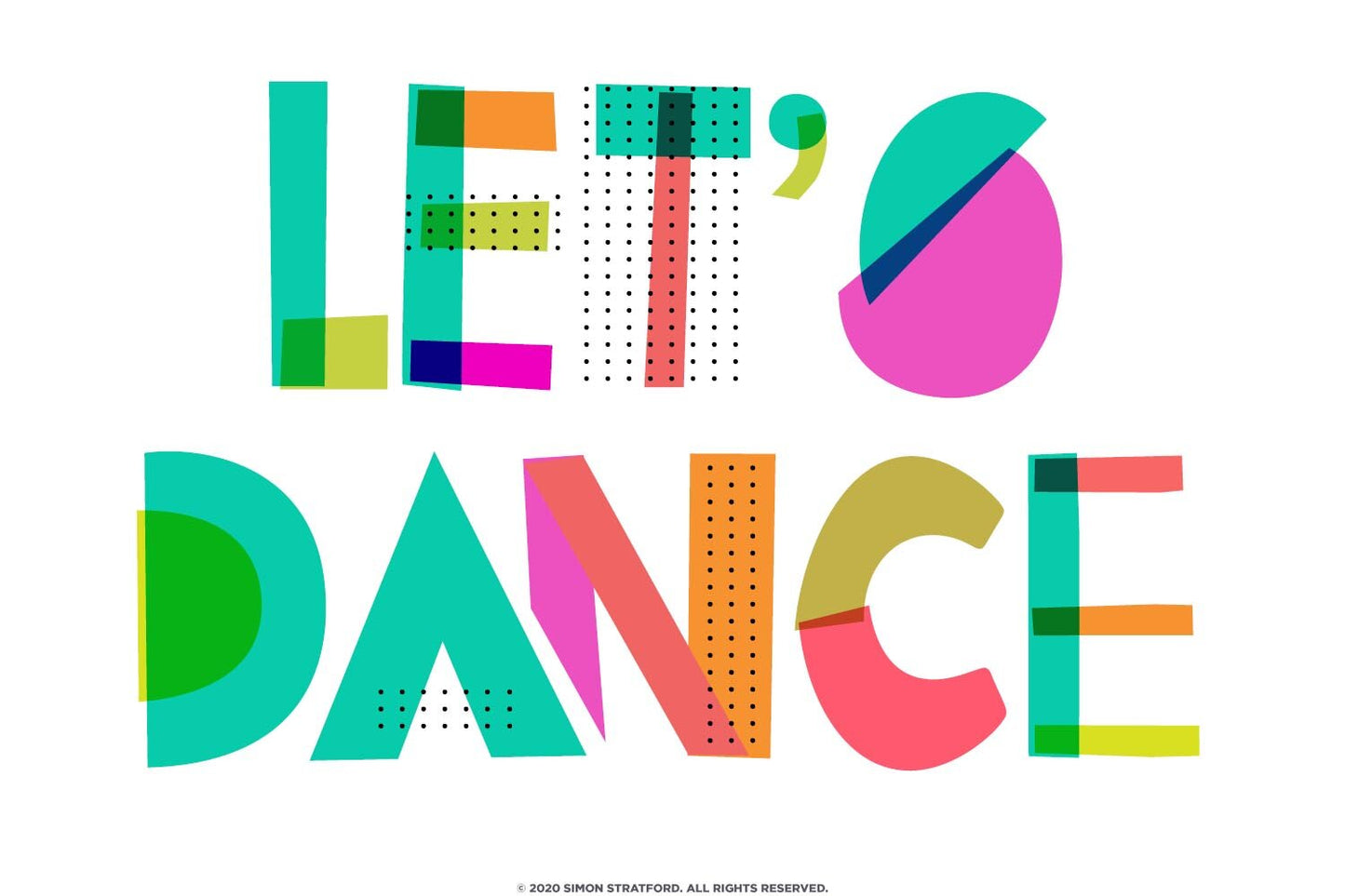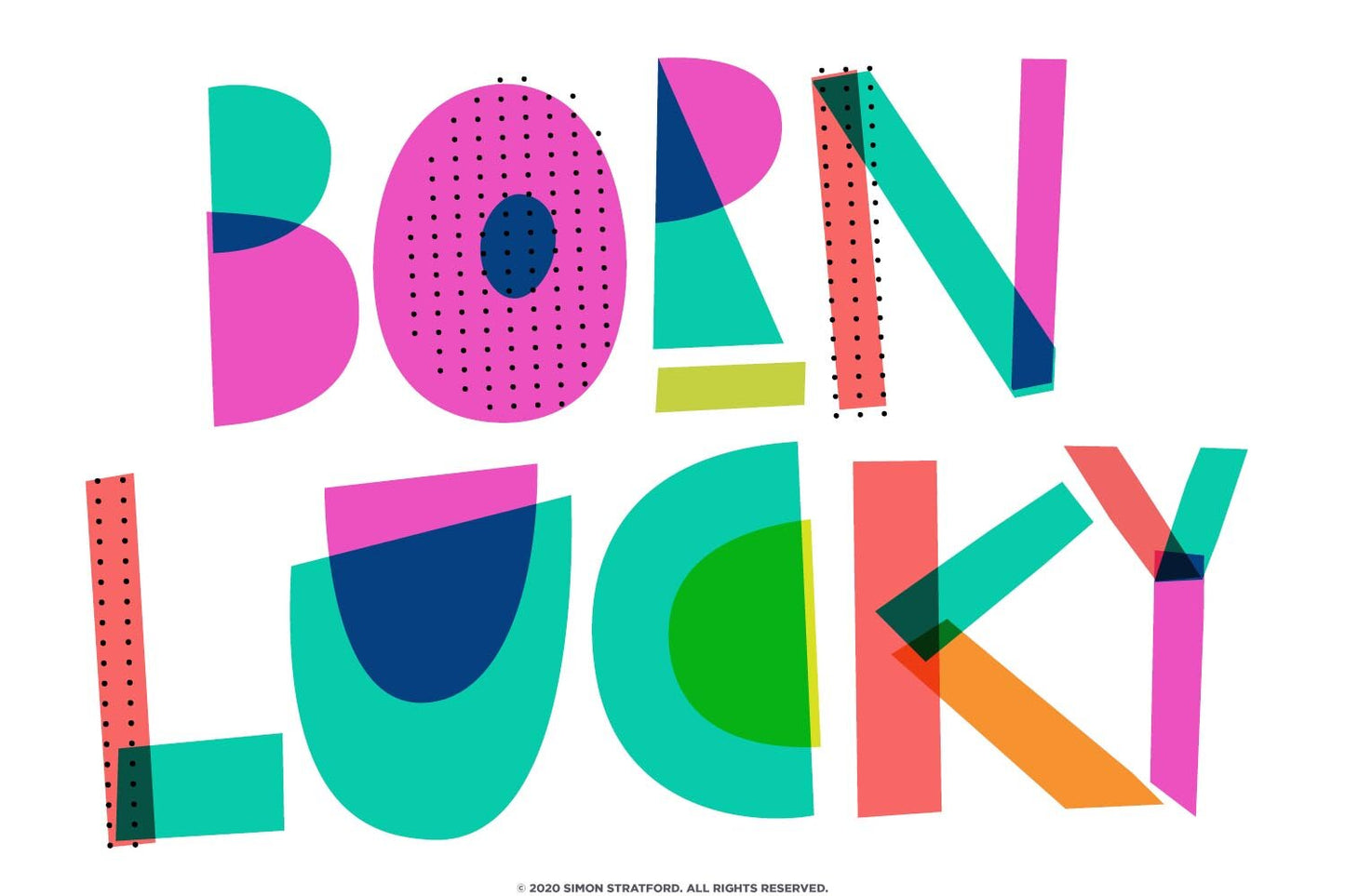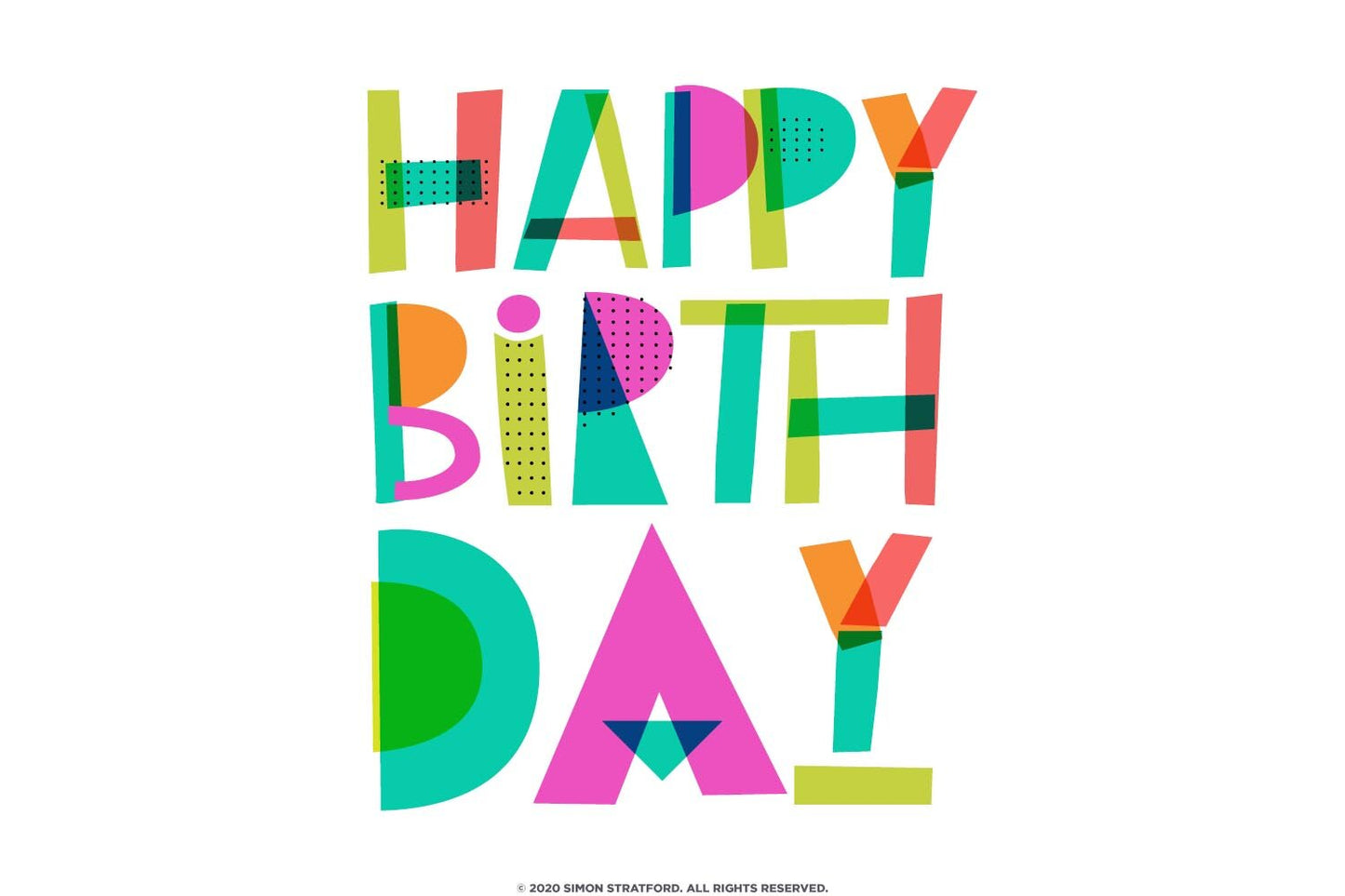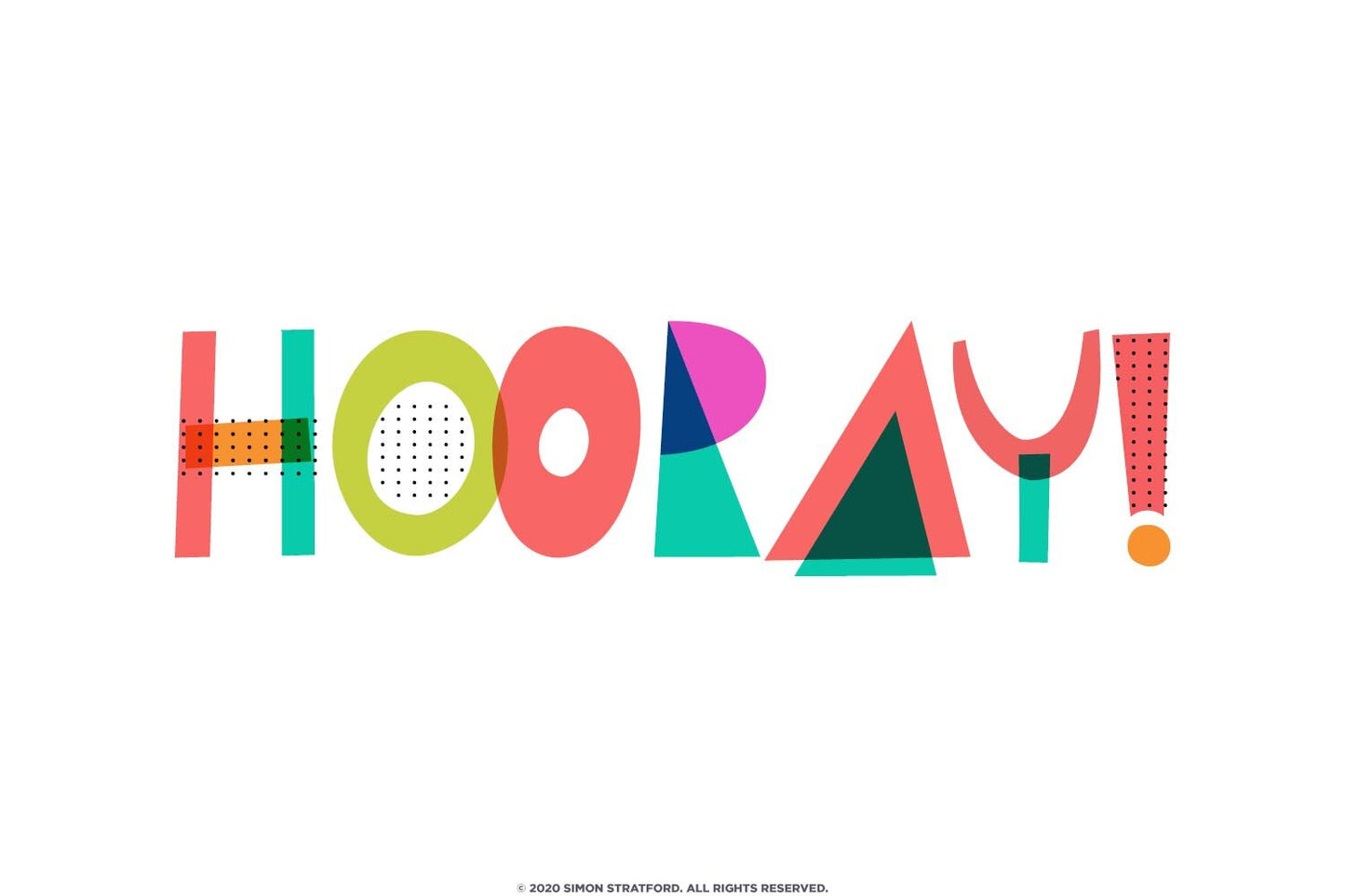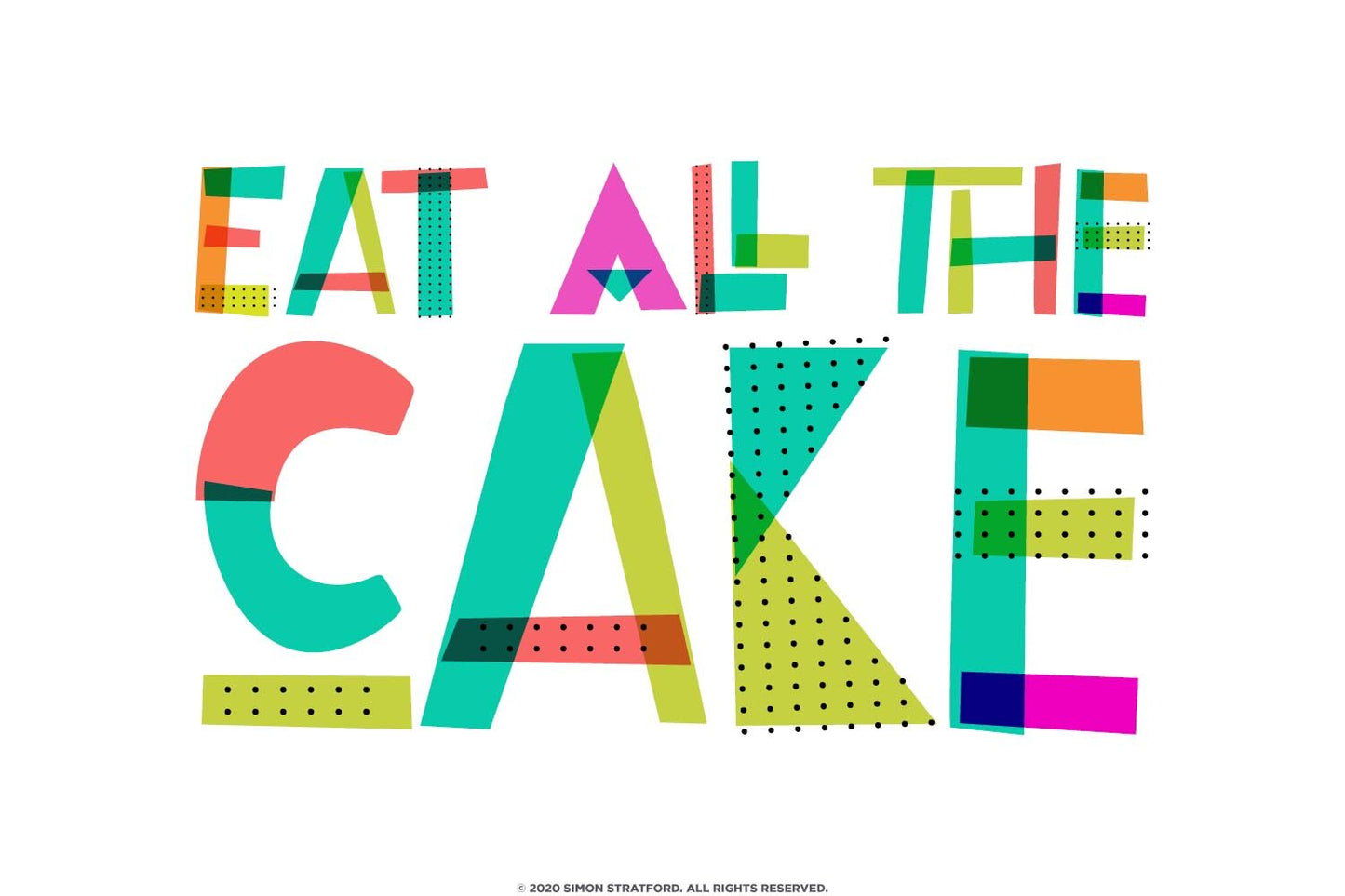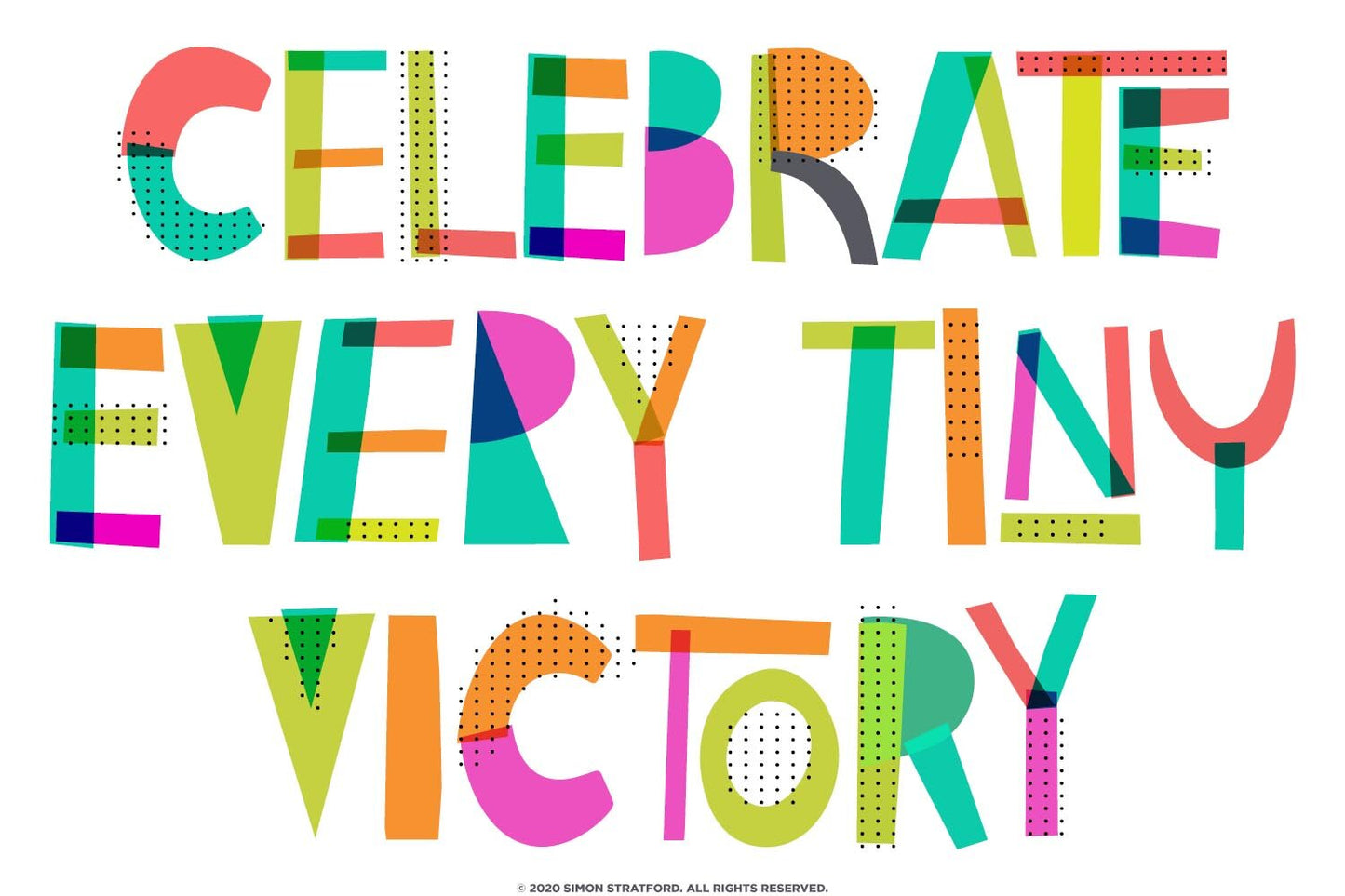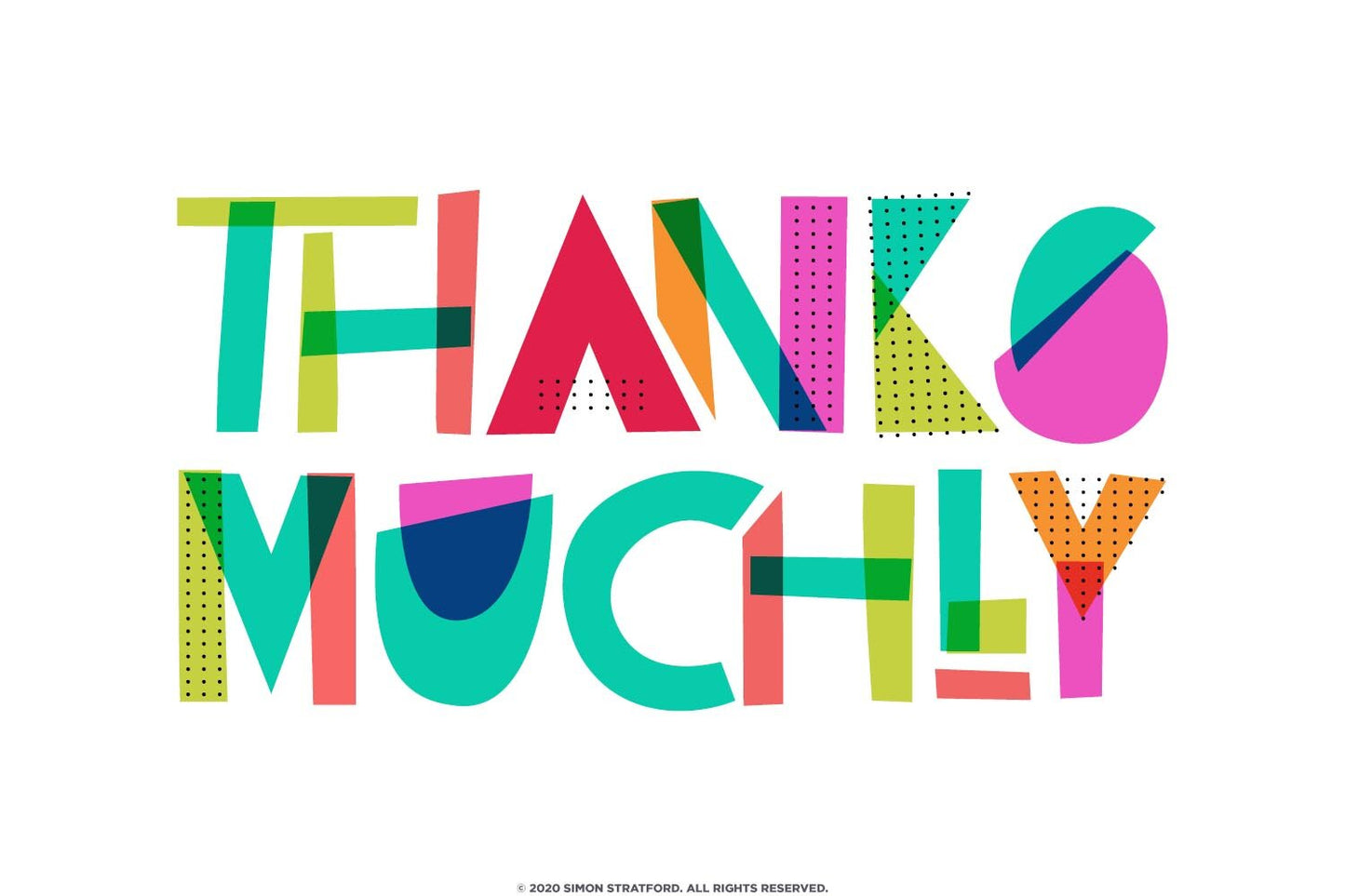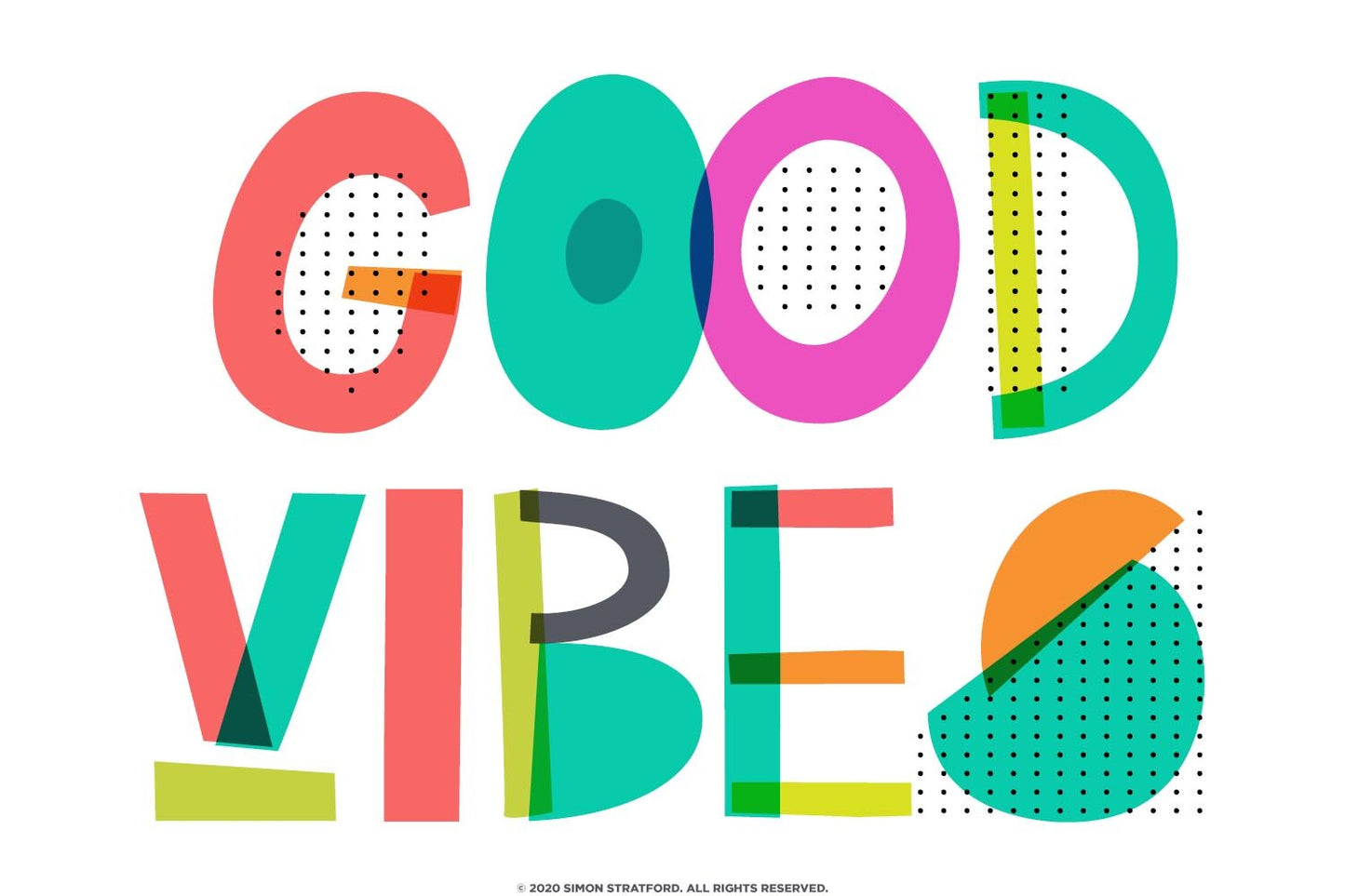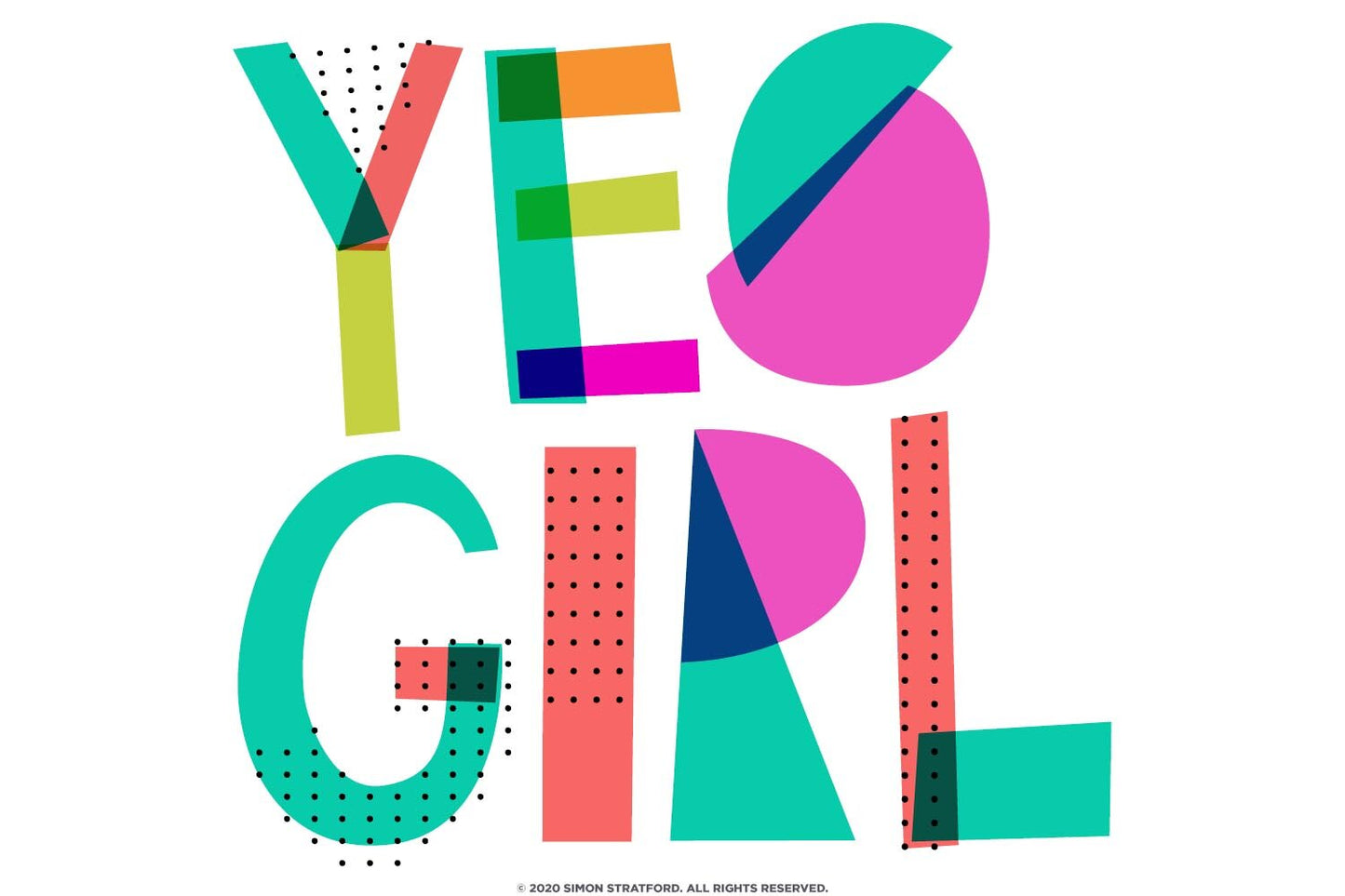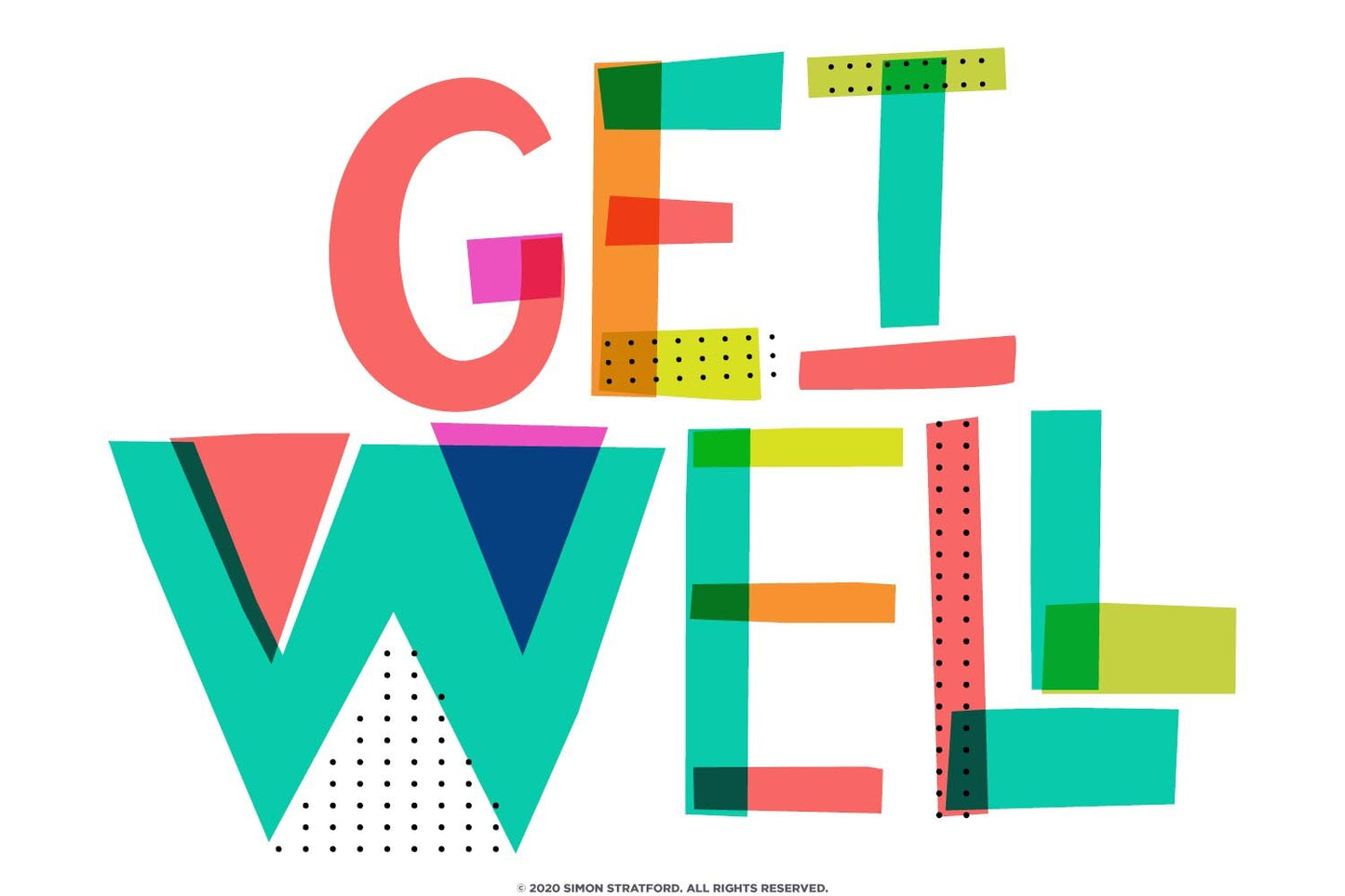
Miss Kooky
About Miss Kooky
Miss Kooky is a whimsical, colourful, and playful display font that exudes a sense of fun and creativity.
Each letter appears as if it has been meticulously cut out of paper and reassembled using a variety of vibrant colours and textures. Some letters tilt to the left or right, giving the font a lively and carefree appearance.
OpenType-SVG color vector font
Notably, Miss Kooky is designed as an OpenType-SVG colour vector font, allowing for full-colour typographic expressions. The colours showcased in the preview images are integrated into the font itself, ensuring that what you see is precisely what you get.
Composed of simple shapes and patterns, Miss Kooky embodies a playful and slightly eccentric personality, making it an excellent choice for celebratory occasions such as birthday cards, greeting cards, invitations, posters, banners, as well as packaging and children's products—anywhere you want to infuse a sense of fun.
Miss Kooky is available in a single style and consists of uppercase characters only. It offers numerous alternative glyphs for each letter from A to Z, providing you with a wide range of design options. Additionally, there's a collection of small ligatures. For ease of access to these alternatives in Photoshop and Illustrator, simply use the glyphs panel.
If Miss Kooky Font Were a Celebrity
Much like Björk's music, known for its experimental and avant-garde qualities, Miss Kooky font brings a playful and vibrant vibe to any design project.